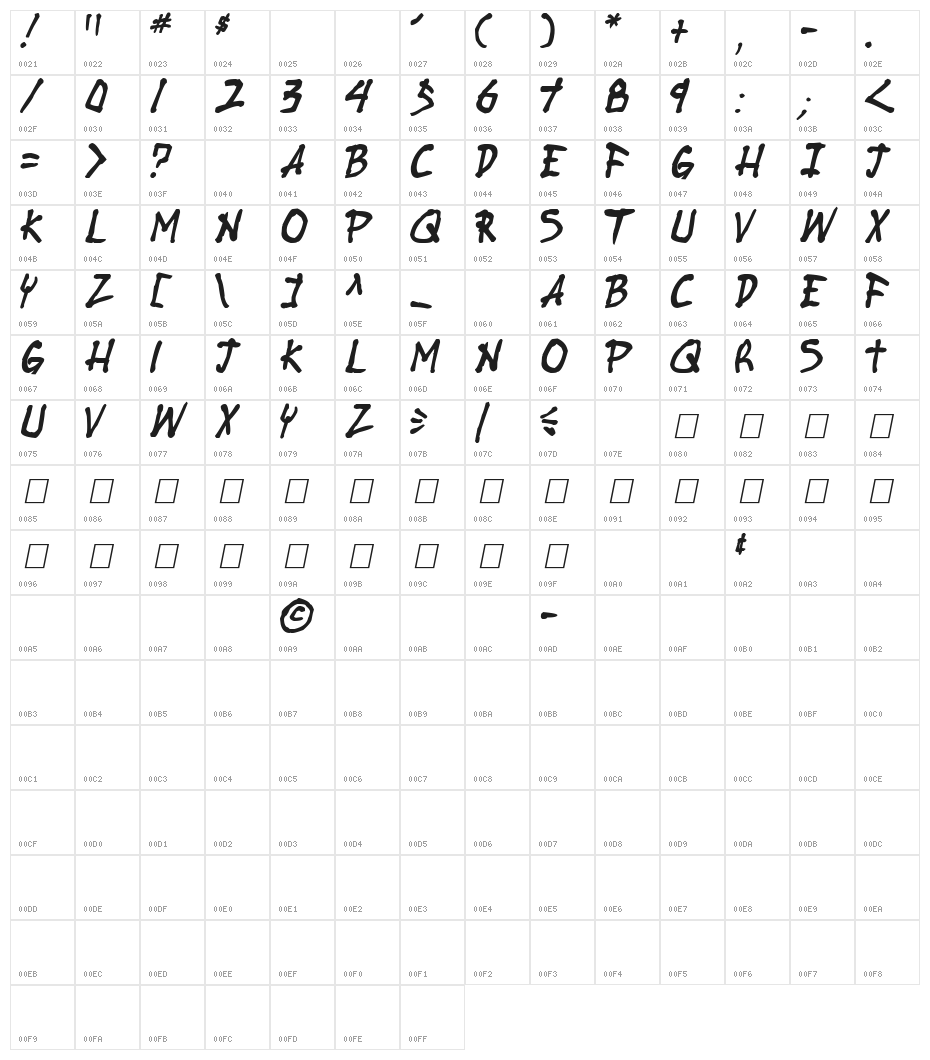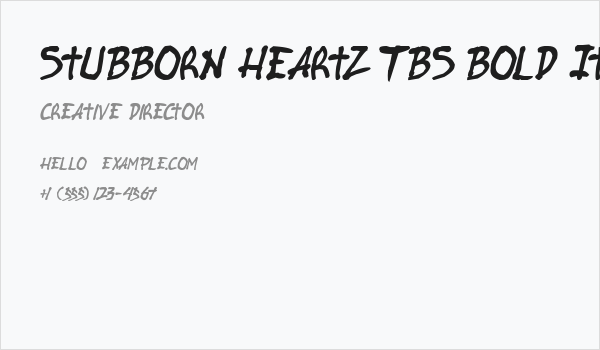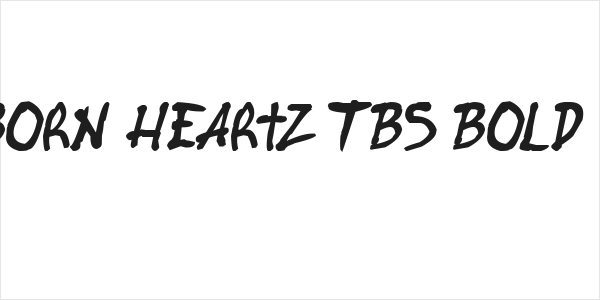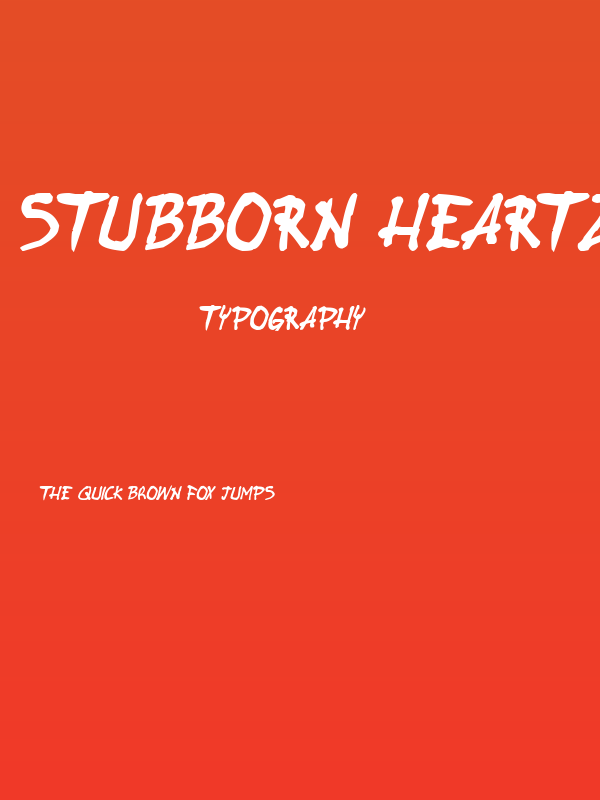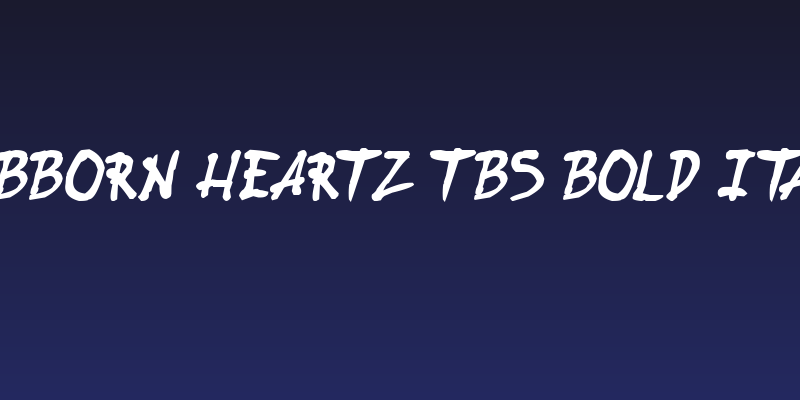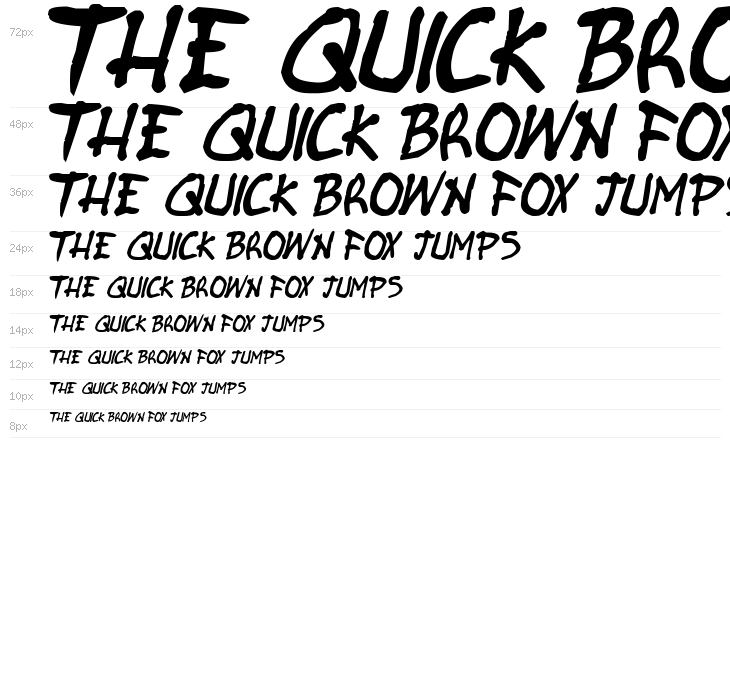
Stubborn Heartz TBS Bold Italic Font
Stubborn Heartz TBS Bold Italic Description
This font exudes a bold and dynamic presence with its thick, energetic strokes and italicized slant. The characters are crafted with a hand-drawn aesthetic, giving it a personal and expressive feel. Each letter is distinct, with a playful yet assertive style that captures attention. The uppercase and lowercase letters maintain a consistent flow, while the numbers and special characters complement the overall design. The font's boldness and italic nature make it ideal for projects that require a strong visual impact.
| Proposed Projects | Ideal for branding, posters, headlines, and any project needing a bold, expressive touch. |